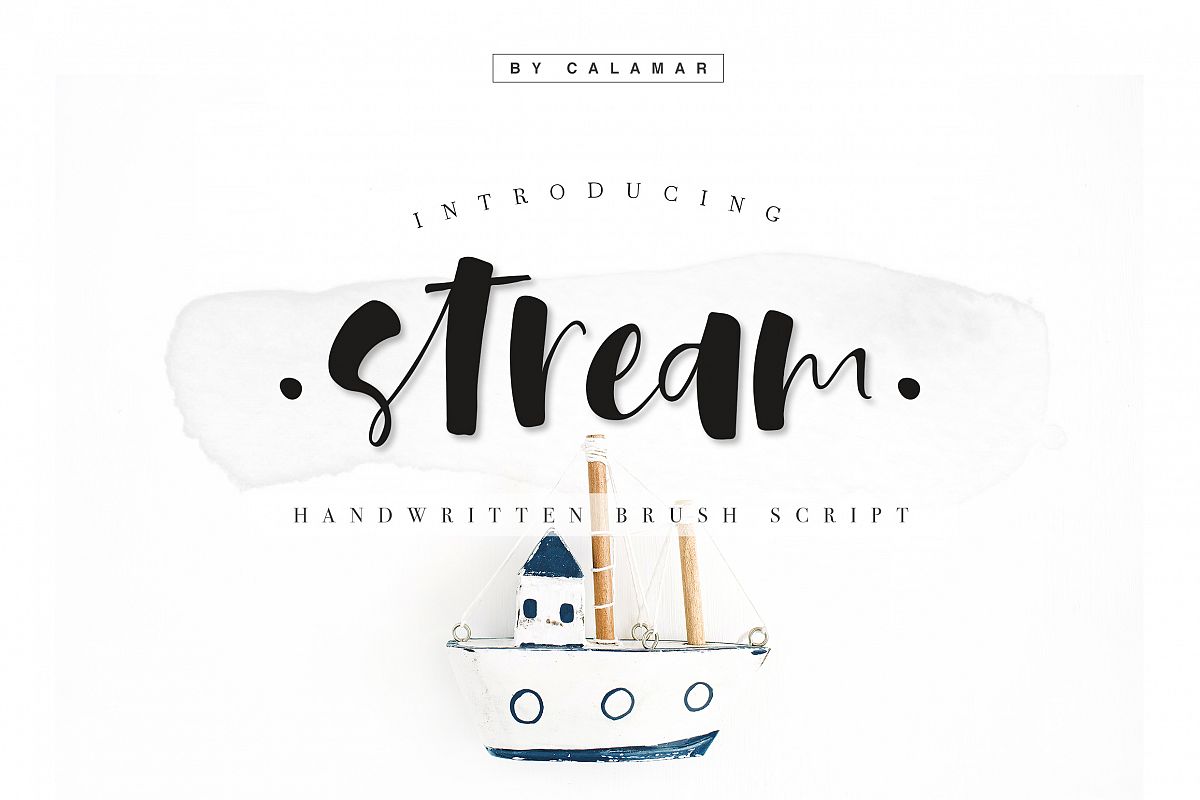
Stream Font
Introducing my new Stream Font!
It's a hand brushed script created with a brush and ink. This playful font will look awesome on cards, branding materials, mugs, onesies, t-shirts and other lovely stuffs you are working on.
Stream Font includes Upper and Lowercase Basic Characters, Numbers and Punctuation. Open Type Features include some ligatures and contextual alternatives.